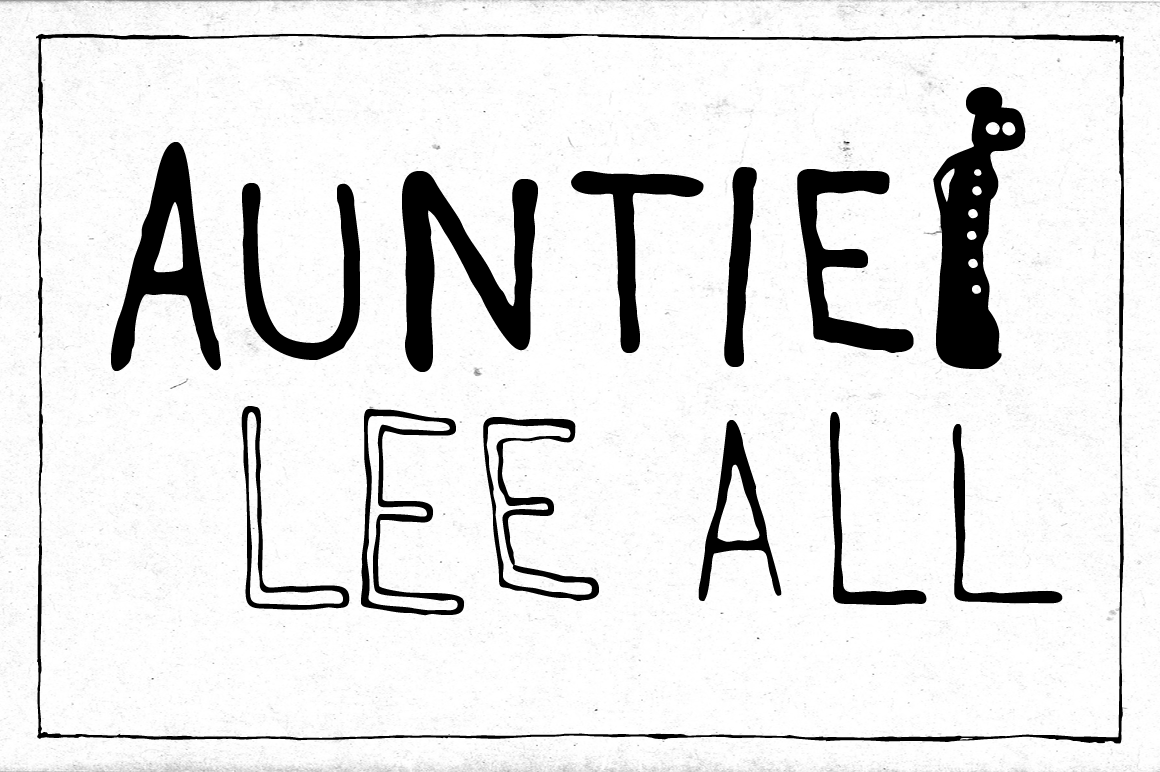
Auntie Lee - complete (3 fonts)
Meet Auntie Lee - hand drawn and playful sansserif! A upper-case-only font with upper-case-variants on the lower-case letters. With three happy versions - regular, outline & thin - you just can't go wrong!